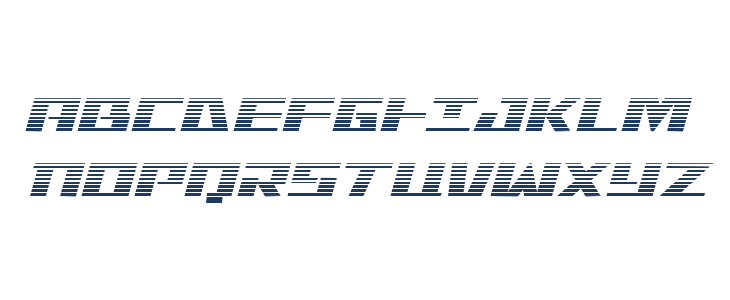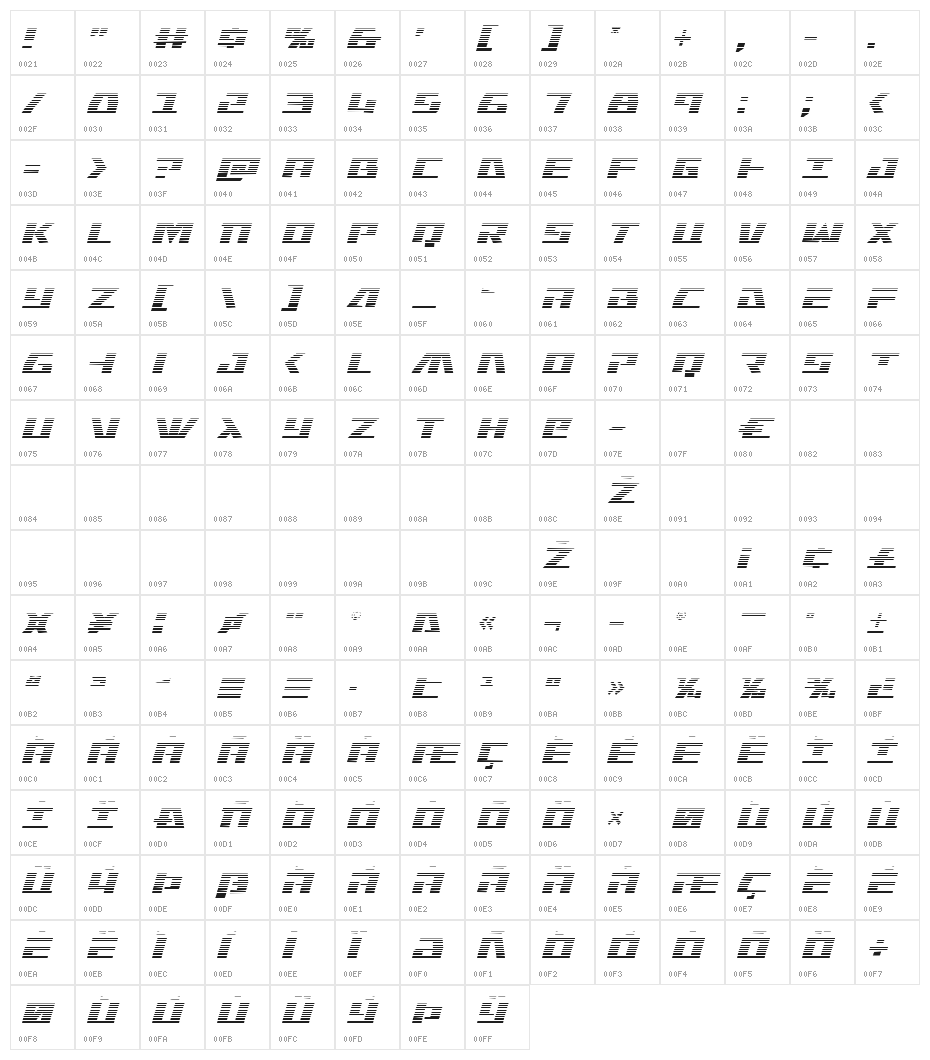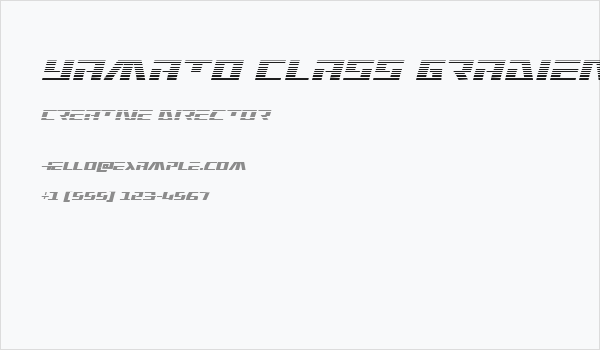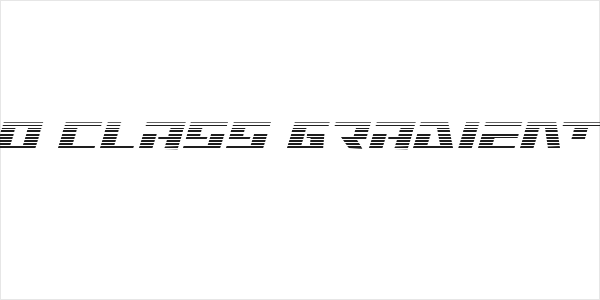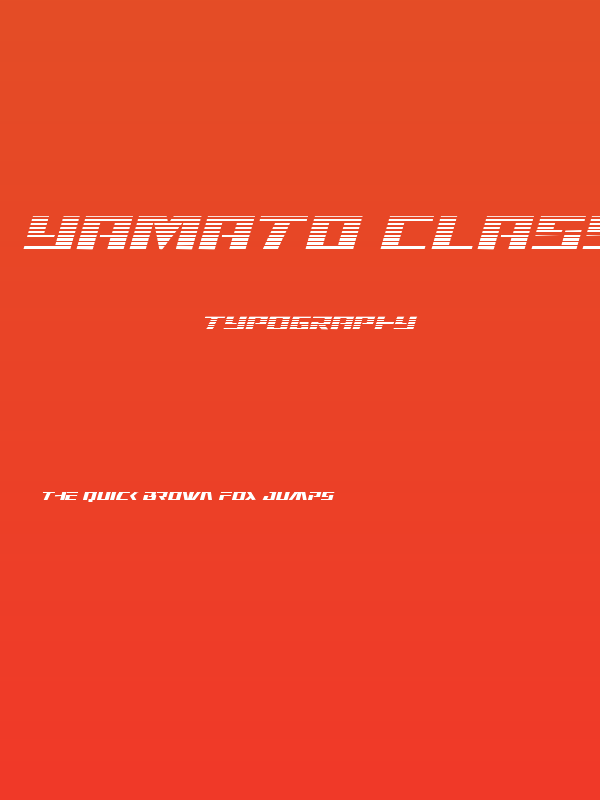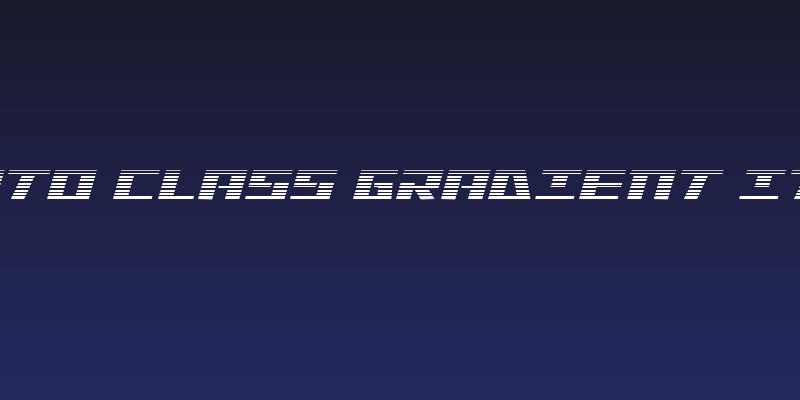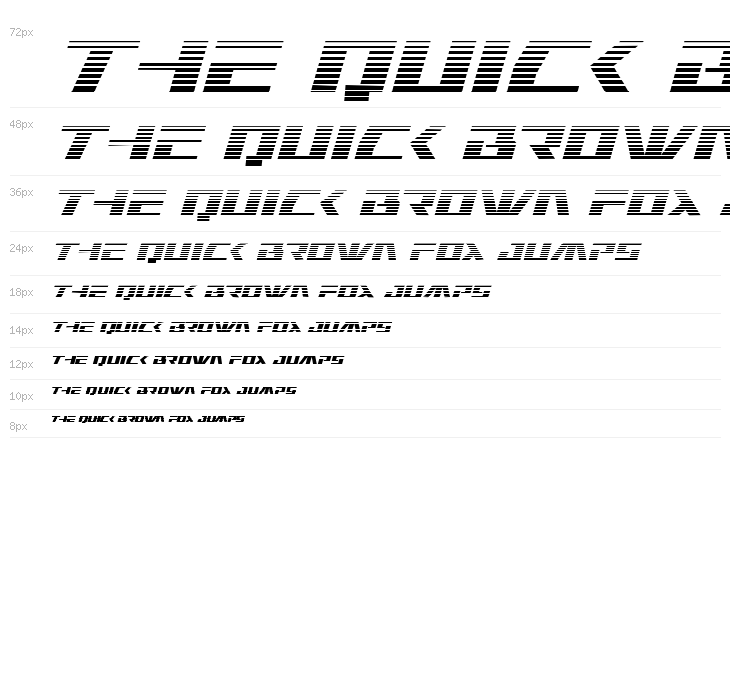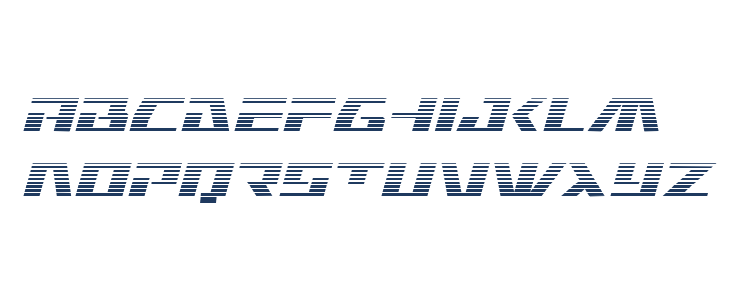
Yamato Class Gradient Italic Font
Yamato Class Gradient Italic Description
A futuristic, italicized display font featuring bold, geometric letterforms constructed from parallel horizontal lines, creating a striped, gradient-like effect. The characters are slanted to the right, emphasizing speed and motion, with consistent spacing and angular cuts.
| Overall Style | Futuristic, Decorative |
| Use Case | Headlines, Logos, Posters, Event Titles |
| Proposed Projects | Tech branding, sci-fi posters, esports logos, racing event graphics, digital interfaces. |